Cool Adobe Blackletter Fonts Ideas
Cool Adobe Blackletter Fonts Ideas. April 4, 2022 by chip kidd. Explore baroque text jf designed by jason walcott at adobe fonts.
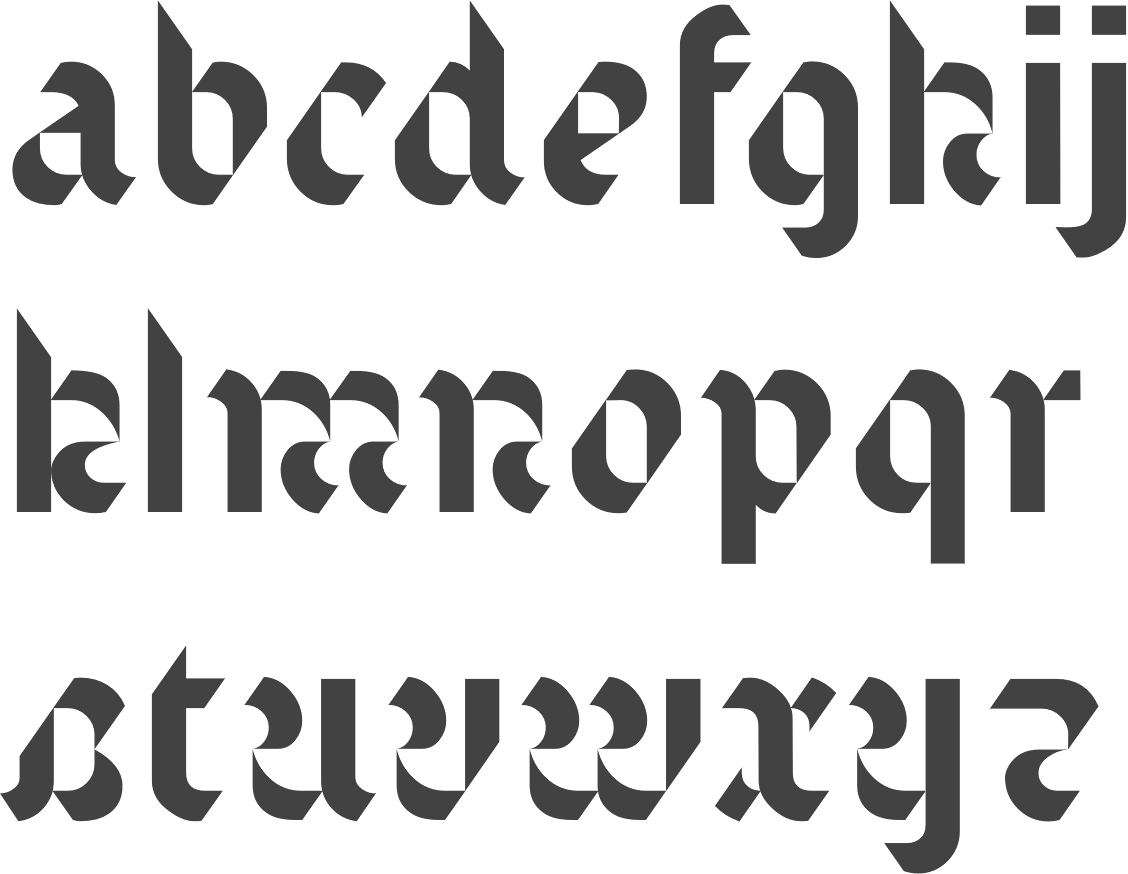
We highly encourage you to read further and learn more about why we chose these particular fonts. Blackletter is also known as old english or. Radja wolly is a font inspired by the blackletter font, made with a modern impression but still looks strong and stencil tyle.
Supported by alternative the centurion font. Baeside is a modern blackletter display font with alternates that have an ornate flair. Blackhead blackletter typeface is a gothic font family with rounded letters.
Blackletter Is Also Known As Old English Or.
Radja wolly is a font inspired by the blackletter font, made with a modern impression but still looks strong and stencil tyle. Explore the latest additions to our font library at adobe fonts. Blackletter fonts have letters that are very bold and ornate.
This Is A Blackletter Font That Has An Opentype Feature.
We highly encourage you to read further and learn more about why we chose these particular fonts. Blackletter 686 contains 1 styles and family package options. Design projects create images or vector.